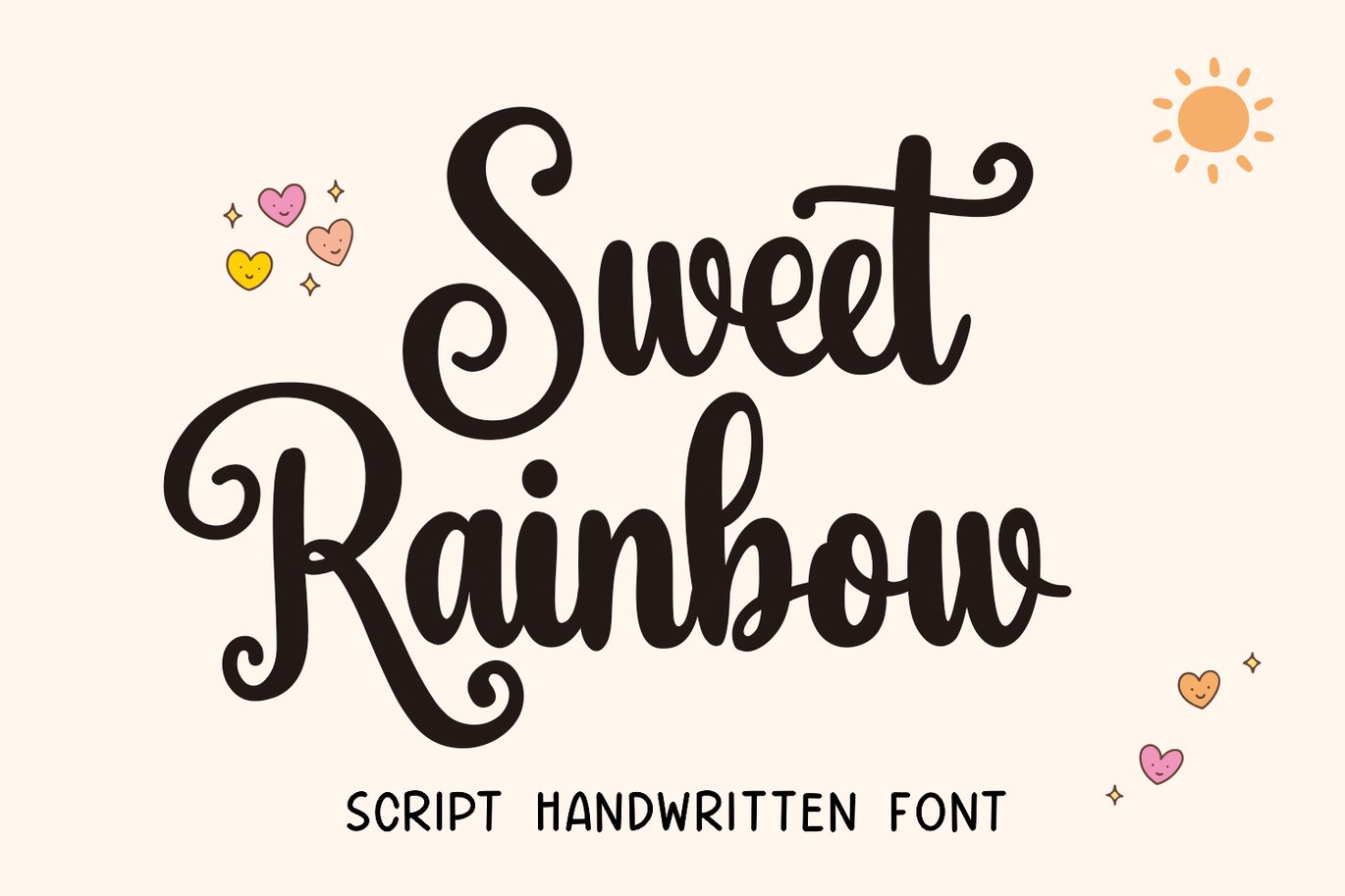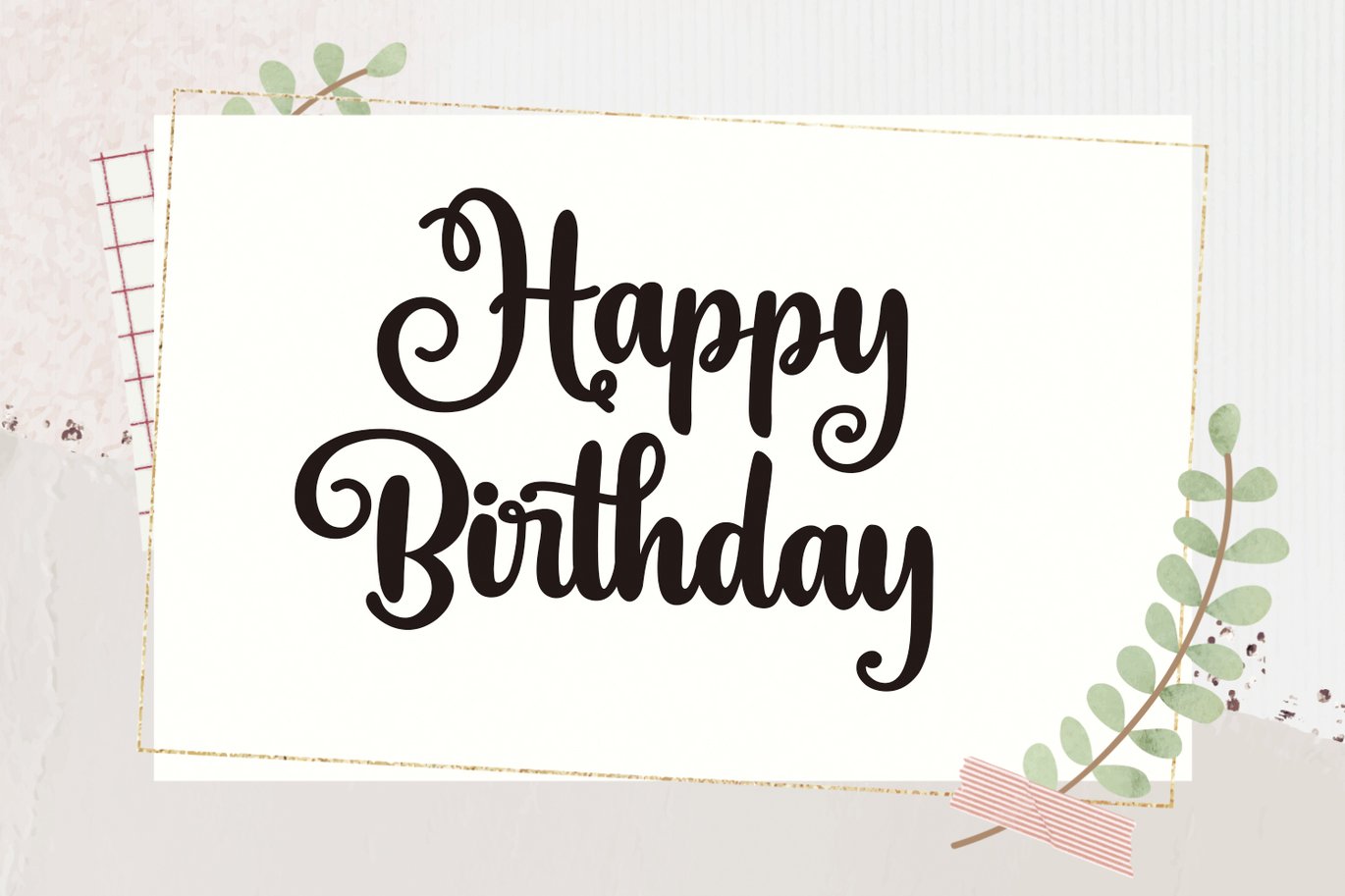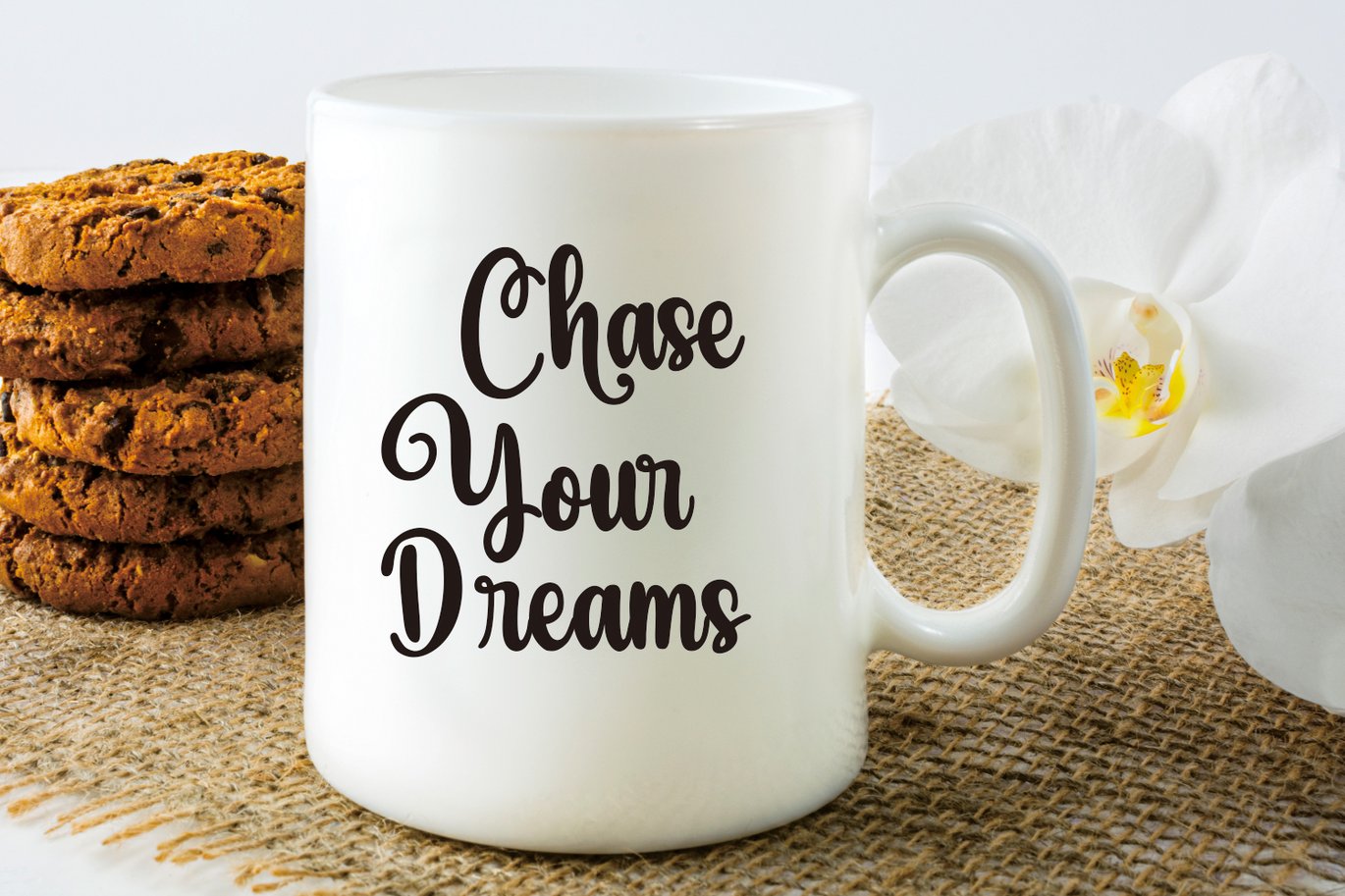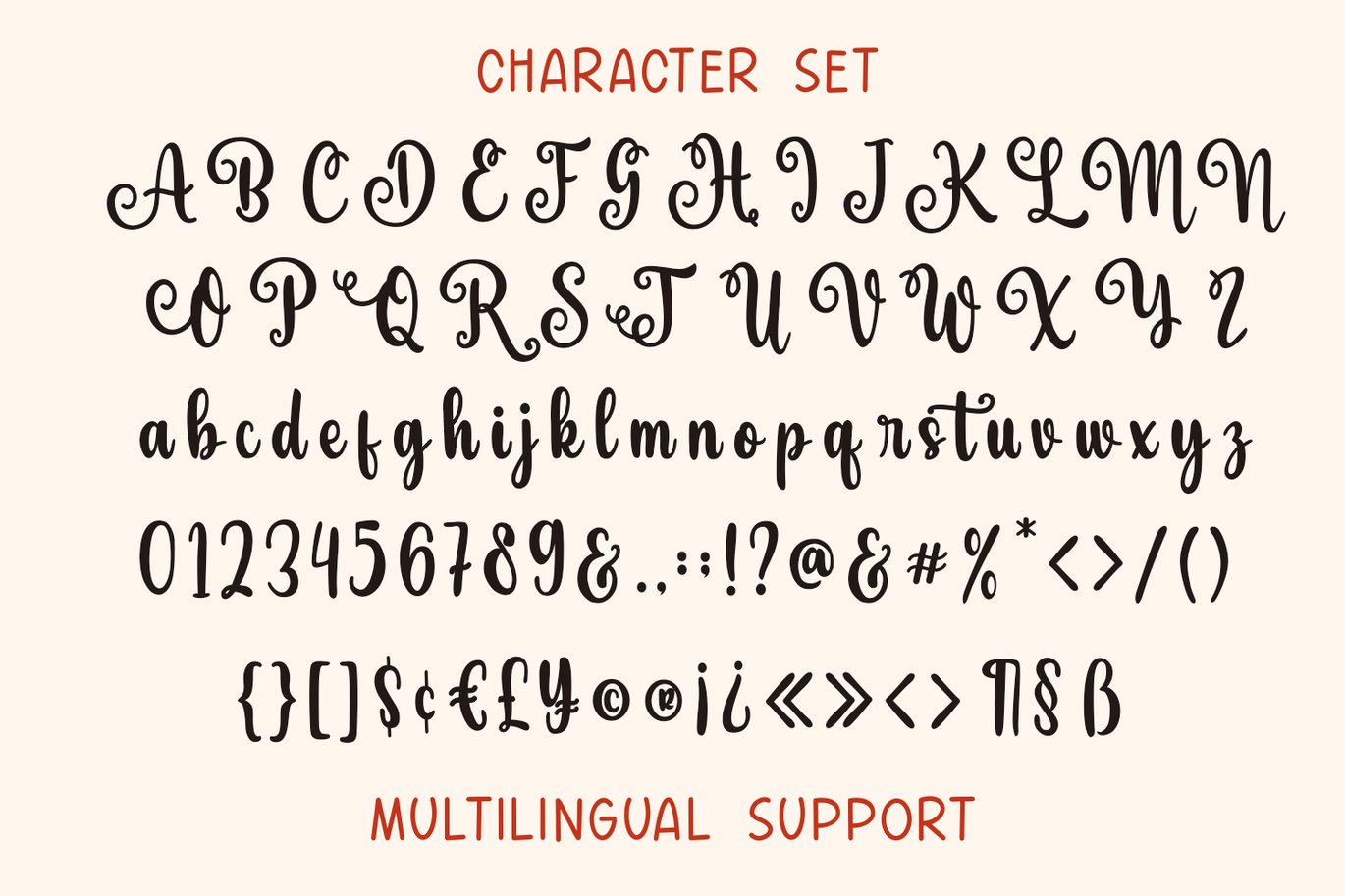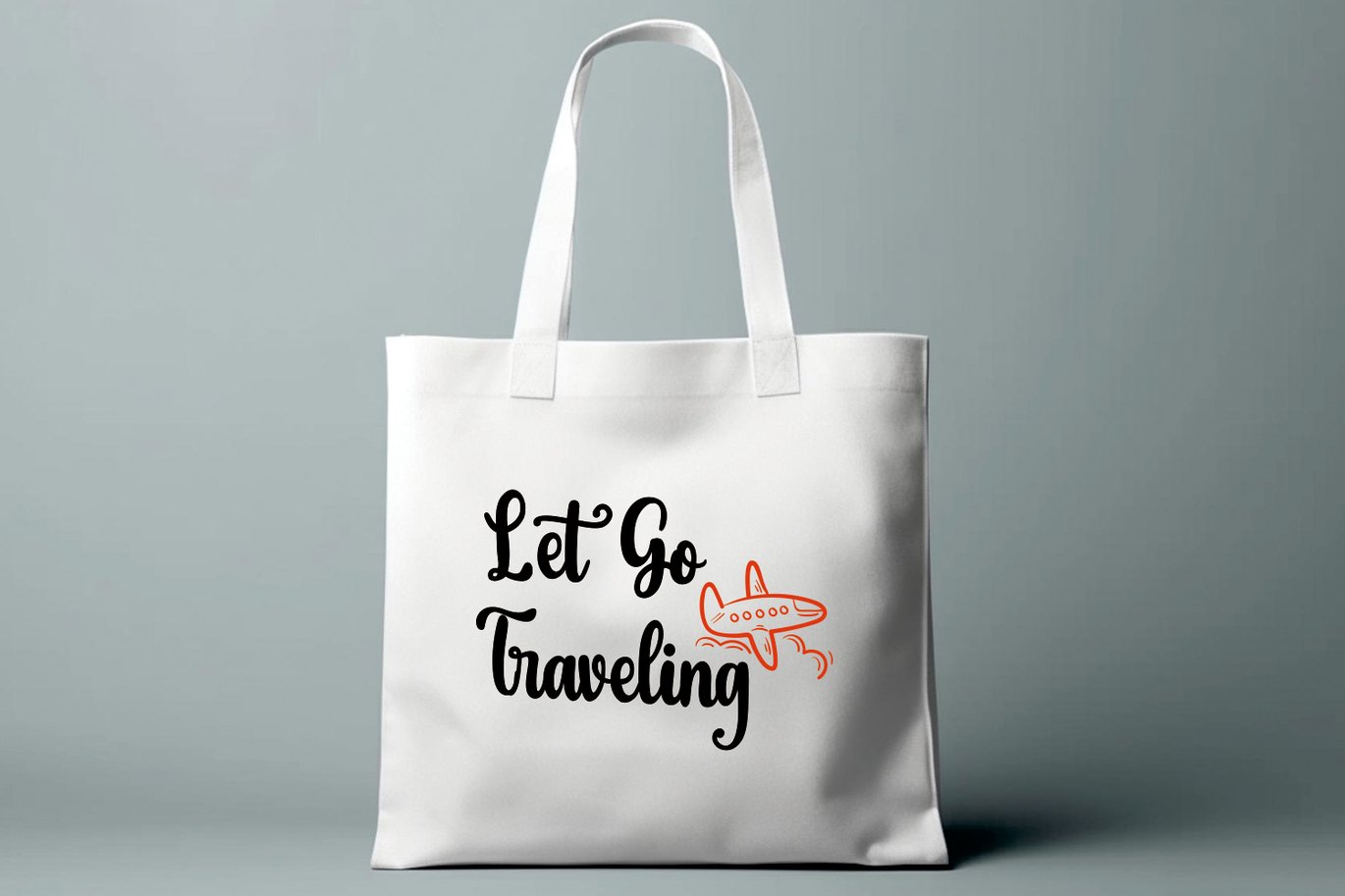
Sweet Rainbow – Wedding Font
Sweet Rainbow is a delightful script font that beautifully encapsulates the essence of various celebrations and seasons. This cute handwritten font effortlessly combines the spirit of Christmas, winter, craft, spring, autumn, holidays, New Year’s, crafting, and embroidery. With its whimsical and playful design, Sweet Rainbow is the perfect choice for adding a touch of festive charm to your creative projects.
The elegant of Sweet Rainbow evoke a sense of celebration, making it an ideal choice for greeting cards, holiday-themed designs, and DIY crafting projects. Its graceful letterforms give a sense of warmth, reminiscent of a cozy winter evening by the fireplace, a joyful Christmas morning, or the blossoms of spring and the colors of autumn.
This versatile font not only captures the holiday spirit but also the crafty essence of handmade projects and the art of embroidery. Its gentle curves and endearing style make it a perfect choice for various creative endeavors throughout the year.